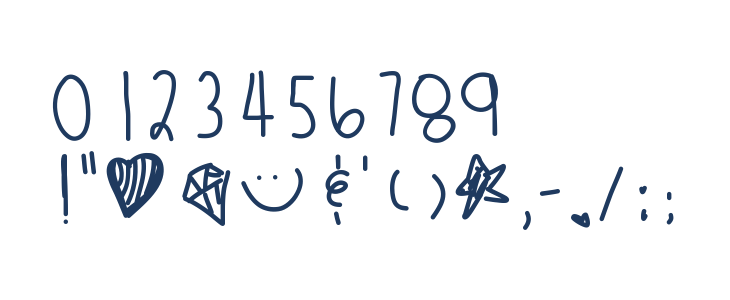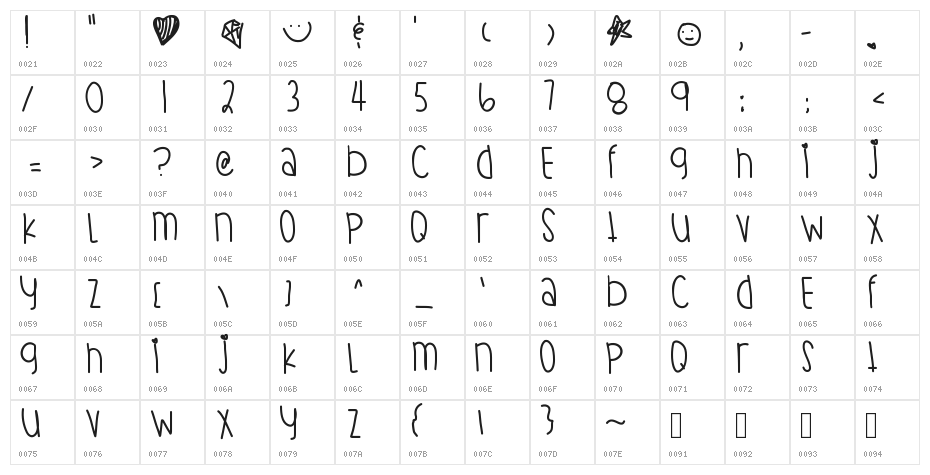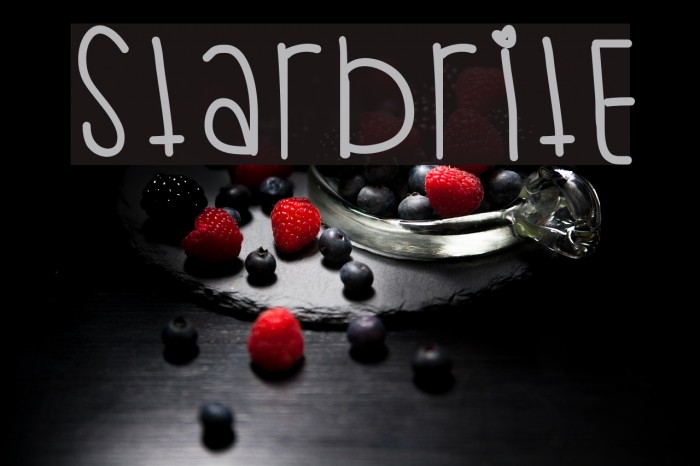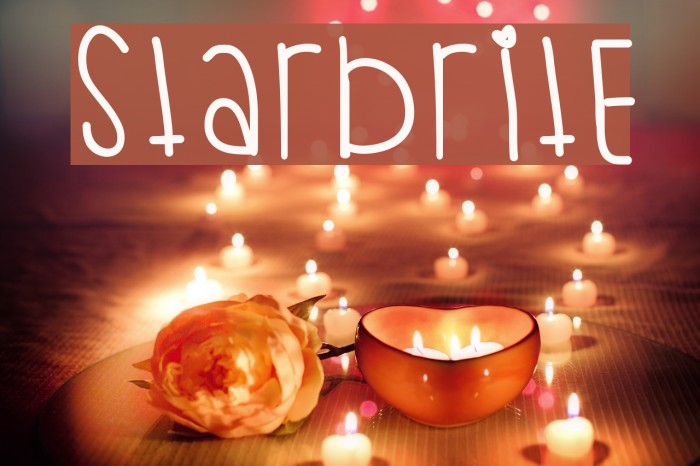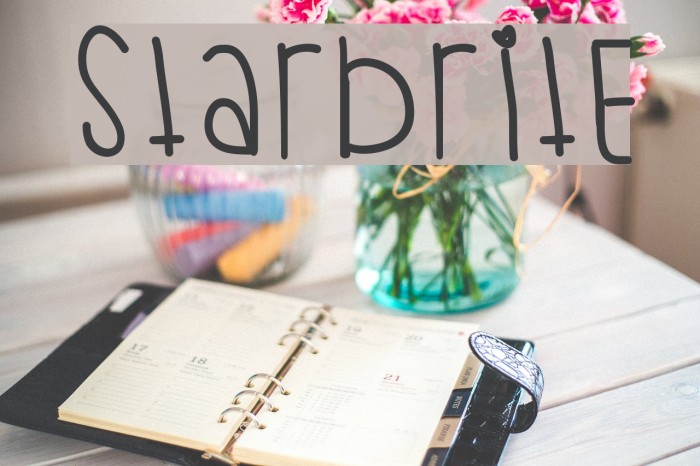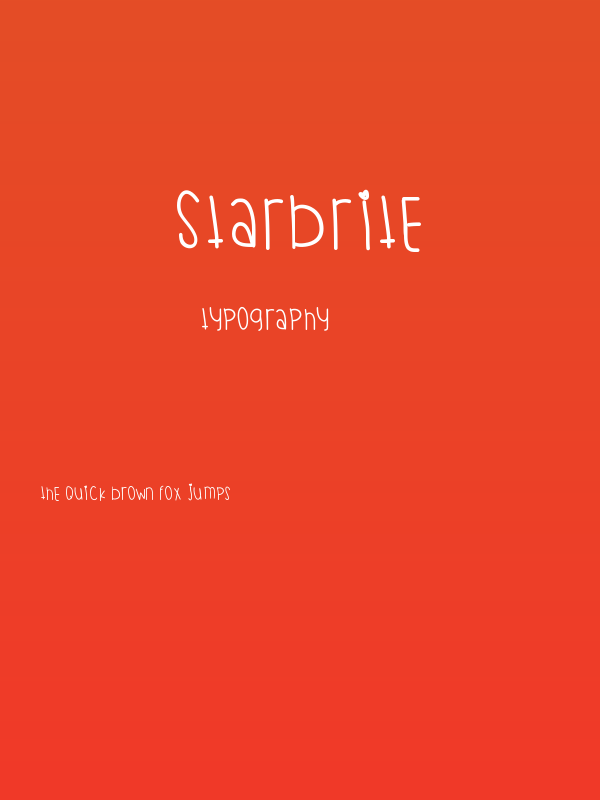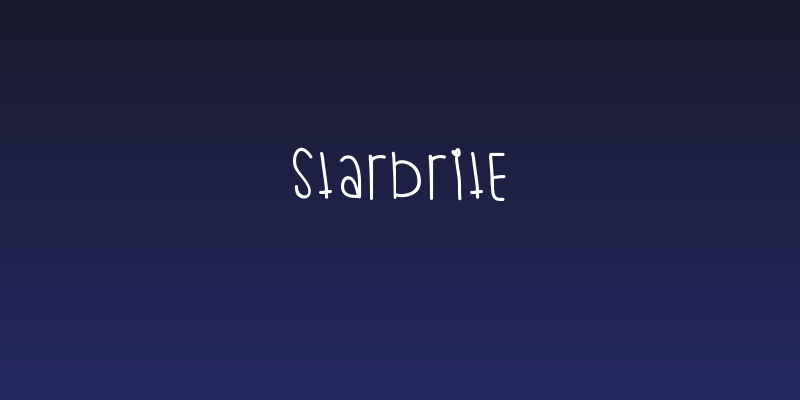
Starbrite Font
Starbrite Description
This playful and whimsical font features a handwritten style with a casual and friendly appearance. The characters are slightly elongated with a consistent stroke width, giving it a uniform look. The uppercase and lowercase letters maintain a cohesive design, with some letters featuring unique embellishments, such as hearts on the 'i' and 'j'. The numbers are clear and easy to read, matching the overall style of the alphabet. Special characters include charming symbols like stars, hearts, and smiley faces, adding to the font's playful nature. This font is perfect for projects that require a fun and informal touch.
| Proposed Projects | Ideal for children's books, greeting cards, playful branding, and casual invitations. |